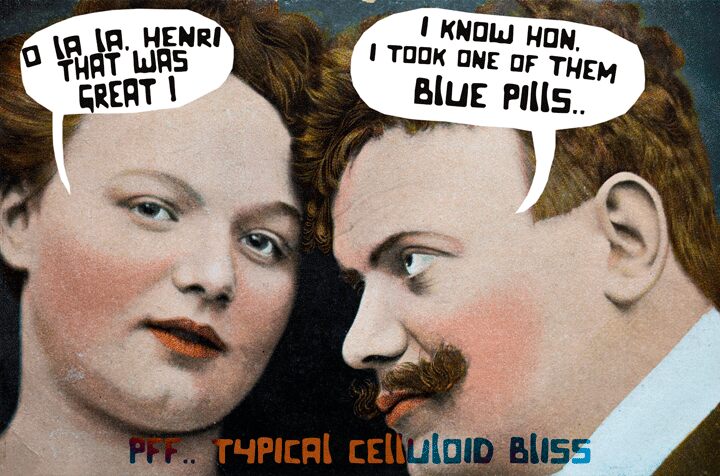
Celluloid Bliss by David Kerkhoff is a free distorted display font with swollen, uneven letters and an offbeat hand-cut silhouette. Thick strokes, pinched joins, and oddly shaped openings give the alphabet a rubbery, slightly unruly look.
Film festival posters are an especially apt setting, since the warped forms suggest playful title lettering from an eccentric animated feature. It also suits album covers, comedy events, and quirky food packaging. In editorial design, its irregular shapes can turn a magazine opener into a compact piece of illustration.